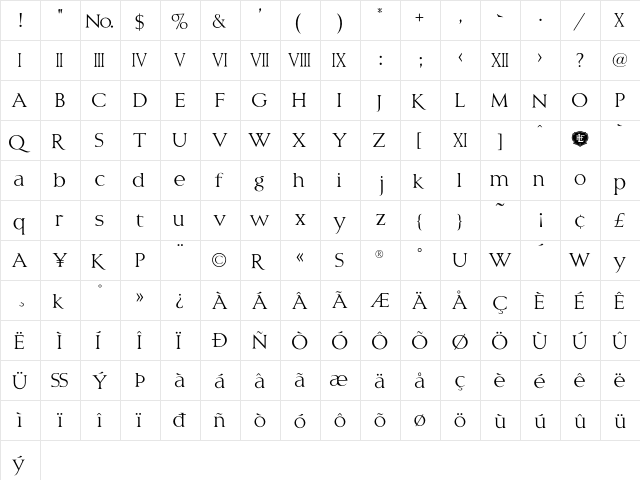
LHFClassicRomanALT Regular
Design Context for LHFClassicRomanALT Typeface
LHFClassicRomanALT has the warm character of retro typography — evoking diners, record sleeves, and the golden age of print advertising.
Ideal for diner signage, record shop branding, 70s/80s-themed projects, and heritage product labels.
Font Pairing: Combine LHFClassicRomanALT with a simple slab or neutral sans — period-accurate companions reinforce the vintage feel without competing for attention.
Pro Tip: Lean into LHFClassicRomanALT's period character by pairing it with aged paper textures, muted colour palettes, and vintage illustration styles.